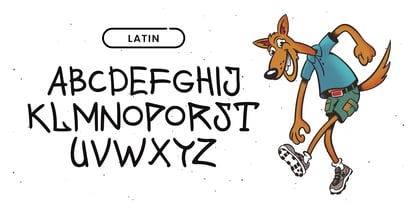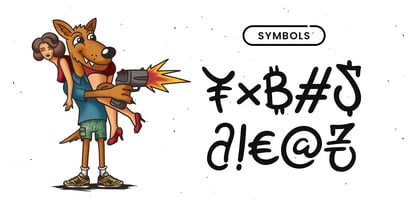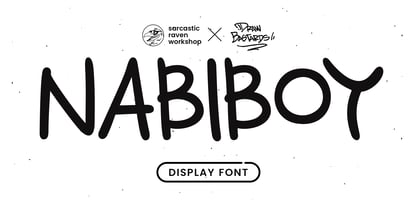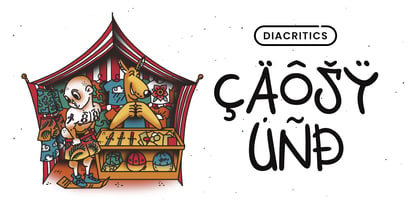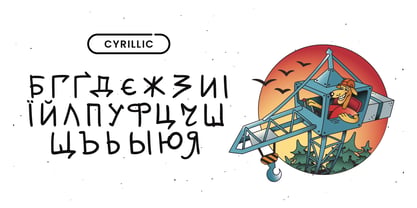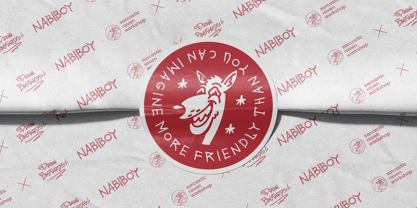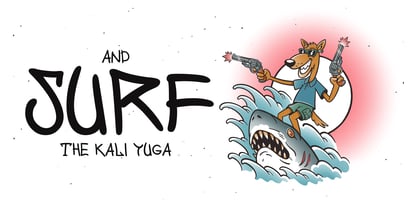
The Nabiboy Font Family was designed by Yaroslav Dolzhenko and published by Sarcastic Raven Workshop. Nabiboy contains 1 styles. More about this family
Nabiboy is a hand-drawn typeface created from the lettering of an old friend. Infused with DIY aesthetics, playful rebelliousness, and a hint of streetwise imperfection, it feels right at home in zines, posters, ads, and album artwork. It also makes a great replacement for traditional comic speech bubble fonts. Rough around the edges yet full of character, Nabiboy brings a human, handmade feel to any project that needs a touch of personality and charm.